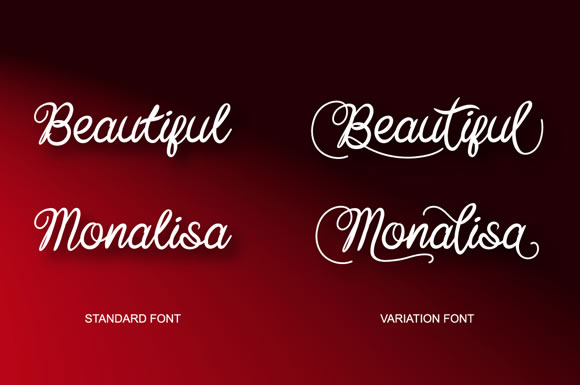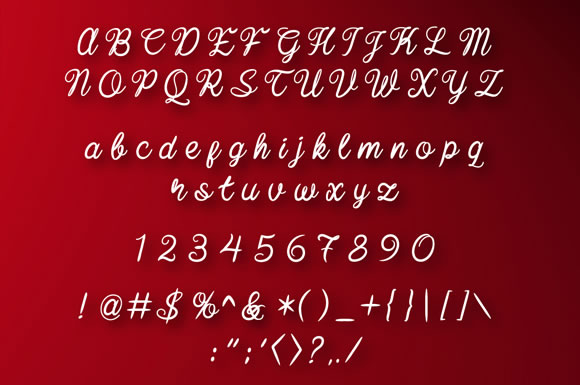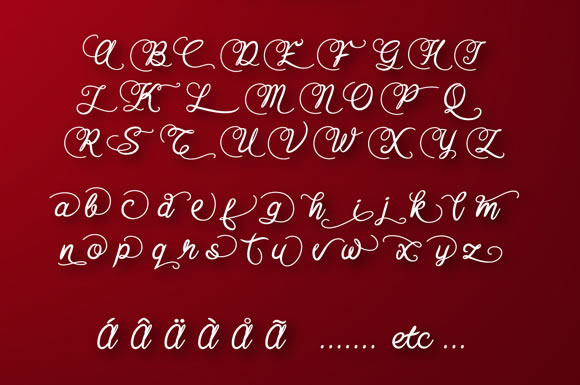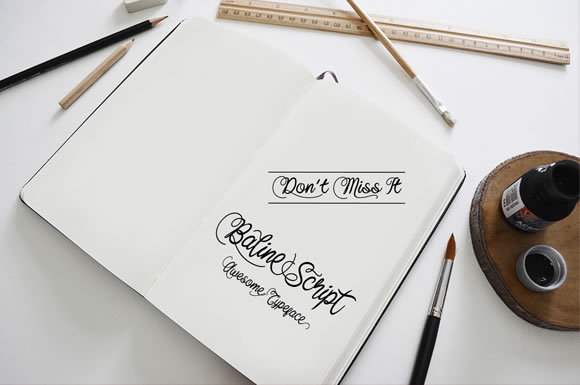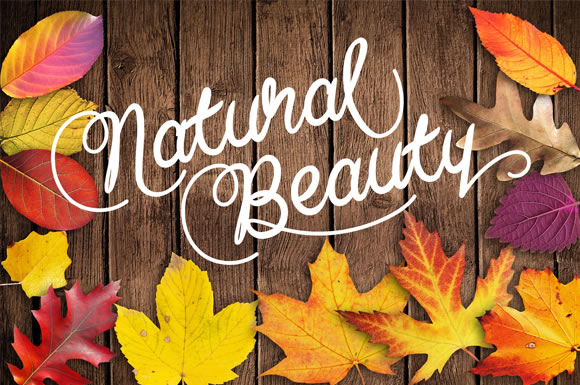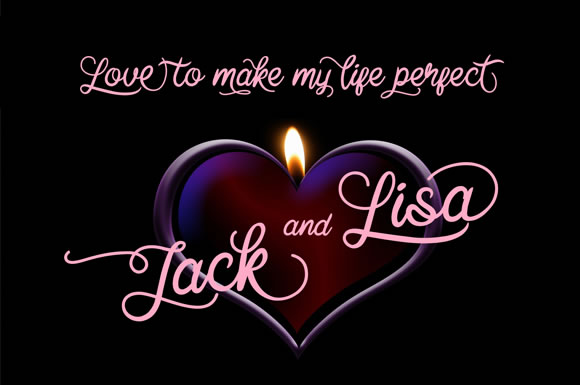
Discover the Elegance of Baline Script Font: A Decorated Typeface for Creative Projects
Are you on the hunt for a font that adds a touch of elegance and spontaneity to your designs? Look no further than the Baline Script Font. This beautifully crafted typeface is perfect for designers and crafters seeking to infuse their projects with a clean, smooth look and feel. In this article, we’ll dive into the world of Baline Script, exploring its features, uses, and the creative possibilities it offers.
What is Baline Script Font?
Baline Script is a stunning decorated font that boasts a unique blend of elegance and playfulness. Its spontaneous design makes it an excellent choice for a wide range of creative projects, from branding and advertising to packaging and digital media. The font’s clean and smooth appearance ensures that it remains legible and visually appealing, even at smaller sizes.
Key Features of Baline Script Font
One of the standout features of Baline Script is its extensive range of alternates. This means that designers have access to multiple versions of each letter, allowing for greater flexibility and creativity when crafting their designs. The font’s features include:
- Clean and Smooth Appearance: Baline Script’s sleek design makes it perfect for projects where a sophisticated look is desired.
- Extensive Alternates: The font includes numerous alternate characters, enabling designers to create unique and varied typography.
- Spontaneous Decorated Style: The font’s playful, spontaneous feel adds a touch of personality to any design.
Uses of Baline Script Font
Baline Script’s versatility makes it suitable for a wide range of applications. Here are some of the ways designers and crafters can use this beautiful font:
- Branding and Logo Design: Create memorable and eye-catching logos with Baline Script’s elegant and playful style.
- Advertising and Marketing Materials: Use the font to add a touch of sophistication and whimsy to brochures, flyers, and posters.
- Packaging Design: Stand out on store shelves with packaging that features Baline Script’s unique and decorative style.
- Digital Media: Enhance your website, social media, or digital advertisements with the font’s clean and smooth appearance.
Tips for Using Baline Script Font Effectively
To get the most out of Baline Script, consider the following tips:
- Experiment with Alternates: Take advantage of the font’s extensive range of alternates to create visually interesting and dynamic typography.
- Mix and Match: Combine Baline Script with other fonts to create striking contrasts and add depth to your designs.
- Pay Attention to Legibility: While Baline Script is designed to be clean and smooth, make sure to test its legibility at different sizes and in various contexts.
Baline Script Font is a beautifully designed typeface that offers a unique blend of elegance, playfulness, and versatility. Its clean and smooth appearance, extensive alternates, and spontaneous decorated style make it an excellent choice for designers and crafters looking to elevate their creative projects. Whether you’re working on branding, advertising, packaging, or digital media, Baline Script is sure to inspire and impress.